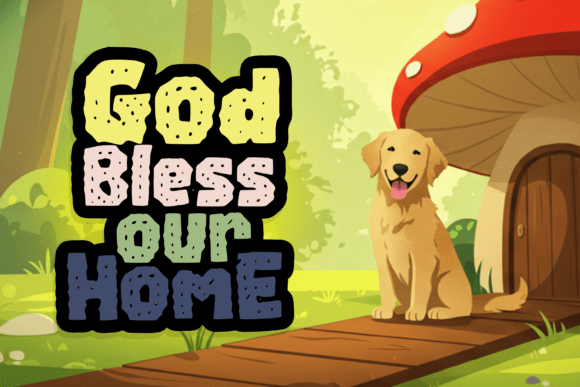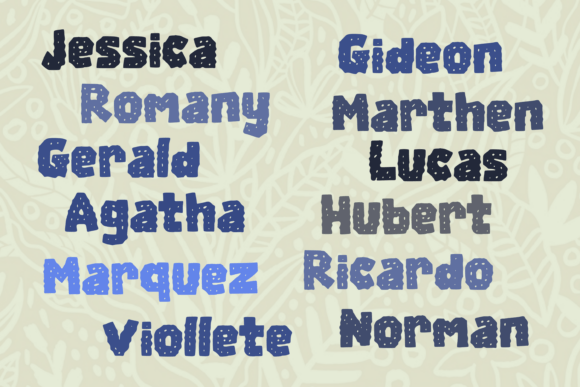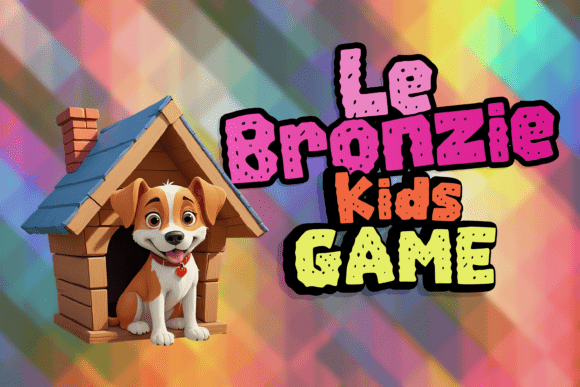
Introduction to Sesame Crackers Font Font
Fonts play a crucial role in design, and the Sesame Crackers Font font is a typeface that brings both character and versatility to any project. Whether you’re working on a branding project, a website, or a print design, the Sesame Crackers Font font offers a unique style that can elevate your work.
Sesame Crackers β A Fun and Crunchy Display Font Bring a playful twist to your design projects with Sesame Crackers, a bold and bouncy display font thatβs packed with personality.
Inspired by the texture and whimsy of delicious crackers, this font features chunky, hand-crafted letters with a quirky dotted pattern that adds flavor to every word Perfect for childrenβs books, snack packaging, cartoon titles, party invitations, or any creative work that needs a cheerful and eye-catching vibe.
Key Features of Sesame Crackers Font Font
Why Choose Sesame Crackers Font Font?
The Sesame Crackers Font font is more than just a typeface β it’s a design tool that helps you communicate your message with style and clarity. Its unique character set and versatile design make it suitable for a wide range of applications, from elegant invitations to bold headlines.
With its carefully crafted letterforms and balanced proportions, the Sesame Crackers Font font ensures readability and visual appeal across all mediums.
What makes Sesame Crackers Font font special?
The Sesame Crackers Font font stands out with its unique design, exceptional readability, and versatility across various design applications.